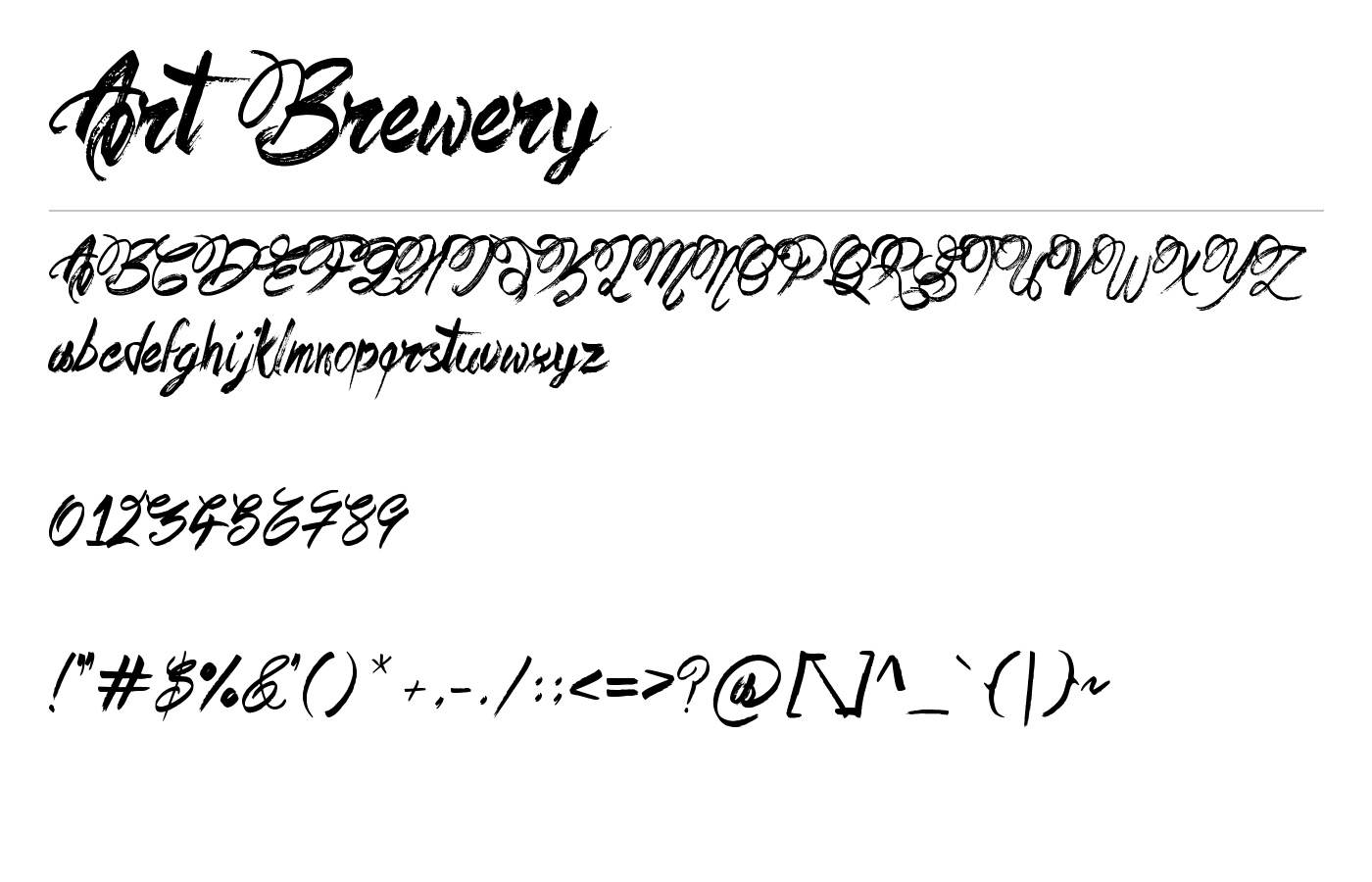
Art Brewery is a bold, expressive script font with a textured, hand-painted style that conveys creativity and energy. Its flowing, irregular strokes and high contrast give it an artistic, dynamic feel, making it perfect for branding projects, posters, and packaging that seek a handcrafted, edgy look. This font works best for headlines and logos where a lively, modern calligraphic touch can truly stand out.
Art Brewery Font
About Art Brewery Font
| Font family | Art Brewery Font |
| Designer | Jonathan Stephen Harris |